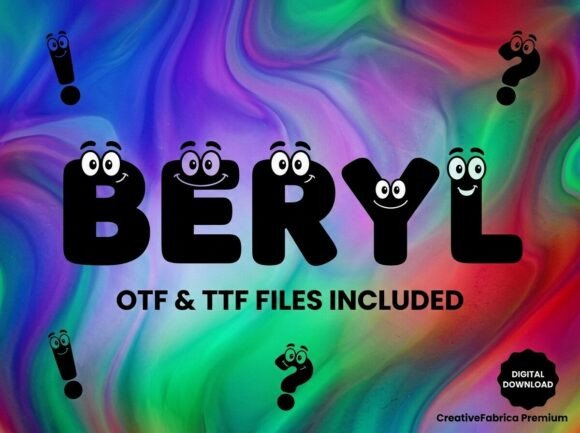
Introducing Beryl Font: The Cheerful and Charismatic Animated Display Font
Are you looking for a font that can infuse your projects with joy and playfulness? Look no further than Beryl, an animated display font that captures the essence of a “cheerful-and-charismatic” soul. This unique typeface features bold, bubbly letterforms that are personified with rhythmic, hand-drawn “googly-eye” expressions and friendly smiles integrated into each character.
The Unique Features of Beryl Font
Beryl’s design is unlike any other font on the market. Its heavy graphic weight and playful personality make it the perfect choice for a variety of projects, from independent children’s toy branding to creative nursery decor, playful snack packaging, and high-impact “happy-and-handmade” social media headers. Each character is carefully crafted with a distinctive personality, making your text stand out and come alive.
Whether you’re a designer or crafter, Beryl font is an excellent addition to your toolkit. Its versatility and playfulness make it easy to use in a wide range of projects, from digital designs to print materials. With Beryl, you can add a touch of whimsy and fun to your work, making it perfect for projects that require a dash of personality.
Use Cases for Beryl Font
So, where can you use Beryl font? The possibilities are endless! Here are a few ideas to get you started:
- Independent children’s toy branding: Beryl’s playful and cheerful personality makes it an excellent choice for branding children’s toys. Its bold and bubbly letterforms are sure to capture the attention of kids and parents alike.
- Creative nursery decor: Add a touch of whimsy to nursery decor with Beryl font. Its hand-drawn “googly-eye” expressions and friendly smiles are sure to delight.
- Playful snack packaging: Make snack time more fun with Beryl font. Its playful personality is perfect for packaging labels, wrappers, and more.
- High-impact social media headers: Stand out on social media with Beryl font. Its bold and cheerful personality is sure to grab attention and make your posts more engaging.
Why Choose Beryl Font?
So, why choose Beryl font over other fonts on the market? Here are just a few reasons:
- Unique personality: Beryl font has a unique personality that sets it apart from other fonts. Its hand-drawn “googly-eye” expressions and friendly smiles add a touch of whimsy and fun to any project.
- Versatility: Beryl font is versatile and can be used in a wide range of projects, from digital designs to print materials.
- Easy to use: Beryl font is easy to use, even for those who are new to design. Its bold and bubbly letterforms make it easy to read and understand.
In conclusion, Beryl font is a unique and versatile animated display font that is perfect for designers and crafters looking to add a touch of joy and playfulness to their projects. Its bold and bubbly letterforms, hand-drawn “googly-eye” expressions, and friendly smiles make it an excellent choice for a wide range of projects. Whether you’re working on independent children’s toy branding, creative nursery decor, playful snack packaging, or high-impact social media headers, Beryl font is sure to infuse your projects with joy and personality.